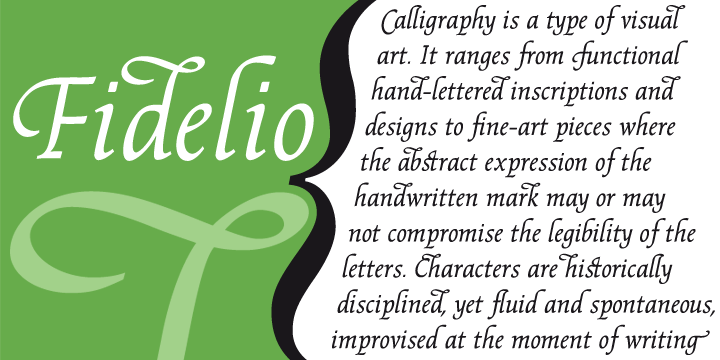
Fidelio was named after Beethoven’s only opera.
It is a chancery italic typeface with swashes that seems to lack a clear systematic organisation: some characters have even more swash versions and some don't have swashes at all.
Fidelio seems to have been written with a broad nibbed pen, but in reality Mendoza designed all shapes by hand. More…